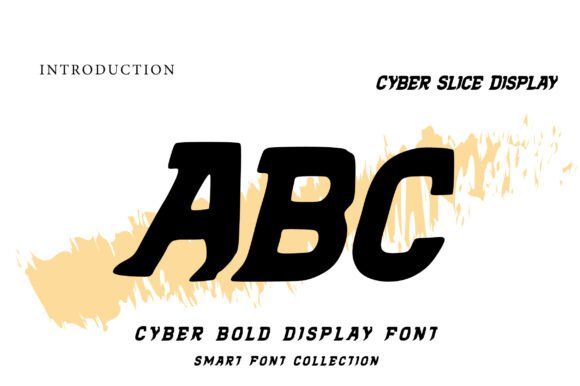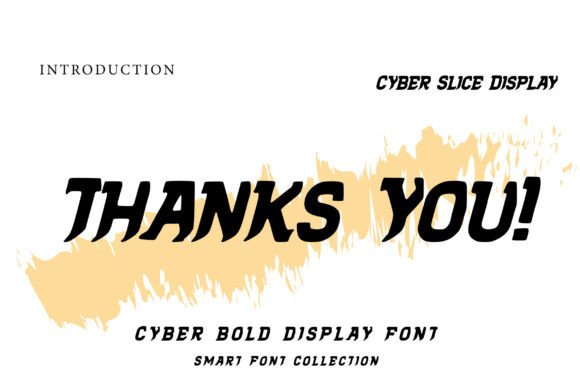
Unleash Your Designs with Cyber Slice Display Font
Have you ever been in the middle of a design project, and suddenly, you’re stuck on finding the perfect font? I recall working on a sci-fi themed poster, and my client requested a font that screamed “cyberpunk.” After hours of searching, I stumbled upon Cyber Slice Display Font, and it was love at first sight! ✨ In this article, we’ll dive into the world of Cyber Slice Display, exploring its features, uses, and what makes it a game-changer for designers.
A Personal Review of Cyber Slice Display Font
- 💥 **Bold and Futuristic**: Cyber Slice Display Font is built for high-impact sci-fi and tech visuals, making it perfect for designs that need motion, intensity, and a modern digital feel.
- 🔥 **Unique Style**: Its sharp cuts, sliced terminals, and forward-leaning italic stance create a fast, cyberpunk energy that’s hard to find in other fonts.
- ✅ **Readability**: The strong weight and angular geometry keep headlines powerful and readable, even at smaller sizes.
- 🎨 **Versatility**: Ideal for various design projects, including gaming titles, esports logos, sci-fi posters, tech branding, and more.
While Cyber Slice Display Font is an amazing addition to any design project, there are a few things to keep in mind:
- 🤔 **Limited Use Cases**: Due to its bold and futuristic style, Cyber Slice Display might not be the best fit for more traditional or elegant designs.
- ⚠️ **Glyph Limitations**: As with any font, some glyphs or special characters might not be included or might require additional setup.
Cyber Slice Display Font comes with a range of OpenType features and glyphs that can enhance your designs. Here are a few tips:
- Access alternative characters, like swashes or ligatures, by using the glyph panel in Adobe Creative Cloud.
- Experiment with stylistic sets to create unique variations of your text.
- Use the font’s built-in kerning and tracking features to fine-tune your text’s spacing and alignment.
The Story Behind Cyber Slice Display Font
Cyber Slice Display Font was created with the goal of capturing the essence of cyberpunk and sci-fi designs. Inspired by the neon-lit streets of Tokyo and the futuristic landscapes of sci-fi movies, the font’s designer aimed to create a typeface that would evoke a sense of speed, energy, and rebellion.
| Font Name | Cyber Slice Display Font |
| Author | Wow Magic |
| What is Cyber Slice Display Font best used for? | Cyber Slice Display Font is ideal for sci-fi and cyberpunk designs, gaming titles, esports logos, tech branding, and more. |
| Is Cyber Slice Display Font suitable for body text? | No, Cyber Slice Display Font is best used for headlines and titles due to its bold and futuristic style. |
In conclusion, Cyber Slice Display Font is a powerful addition to any design project that requires a bold, futuristic, and cyberpunk-inspired aesthetic. With its unique style, versatility, and practical applications, it’s an excellent choice for designers, crafters, and creative hobbyists alike.